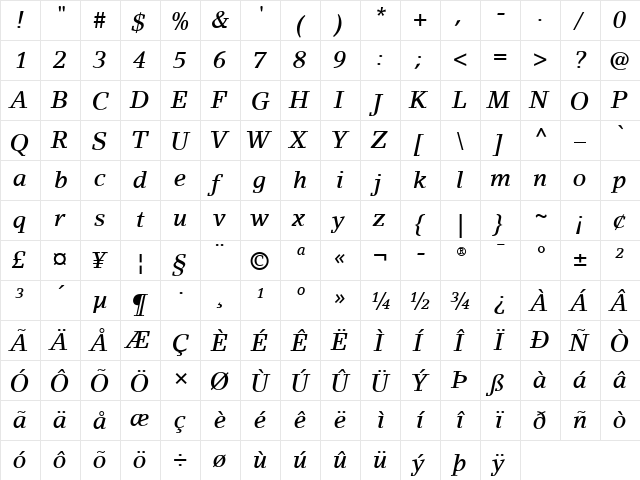
LinoLetter LT Medium Italic Font Preview
LinoLetter LT Medium Italic
Design Context for LinoLetter LT Medium Typeface
LinoLetter LT Medium is a composed and adaptable typeface that performs quietly and consistently across a wide range of design contexts. The slanted form adds forward momentum and visual energy. Its slender proportions lend an understated elegance to any composition.
Pro Tip: Use LinoLetter LT Medium for emphasis, pull quotes, and subheadings where its slanted energy can add rhythm to the layout.